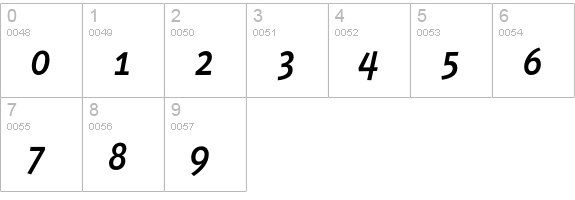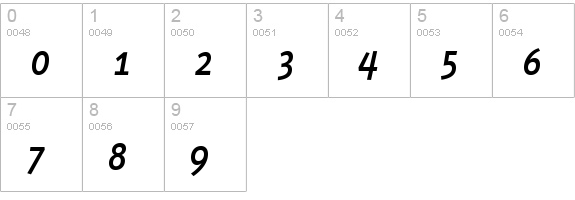
PedestriaMVB-Medium-Italic is a balanced, medium-weight, italic variant in the PedestriaMVB typeface family \xE2\x80\x94 well suited to sub-headlines, navigation, and balanced editorial work.
Introducing PedestriaMVB-Medium-Italic, a font that effortlessly combines elegance and versatility. This font is perfect for those seeking a touch of sophistication in their designs, while still maintaining a modern and approachable feel. With its medium weight and italic styling, PedestriaMVB-Medium-Italic adds a subtle yet impactful twist to any project. Designed with meticulous attention to detail, this font boasts clean lines and smooth curves, resulting in a visually pleasing and legible typeface. Its versatility allows it to shine in a variety of contexts, making it a go-to choice for both professional and personal use. Whether you're creating eye-catching headlines, designing captivating logos, or crafting engaging marketing materials, PedestriaMVB-Medium-Italic is sure to elevate your work to new heights. One of the best features of PedestriaMVB-Medium-Italic is that it is freely available to download at FontsMarket.com. This means that you can access this premium font without any cost, making it a valuable addition to your design arsenal. With just a few clicks, you can enhance your projects with the elegance and style that PedestriaMVB-Medium-Italic brings. So why wait? Download PedestriaMVB-Medium-Italic today and experience the seamless blend of sophistication and versatility that this font offers. Whether you're a professional designer or a creative enthusiast, this font will undoubtedly become an indispensable tool in your creative journey. Don't miss out on the opportunity to enhance your designs with this stunning free font. Visit FontsMarket.com now and let PedestriaMVB-Medium-Italic elevate your creative endeavors.